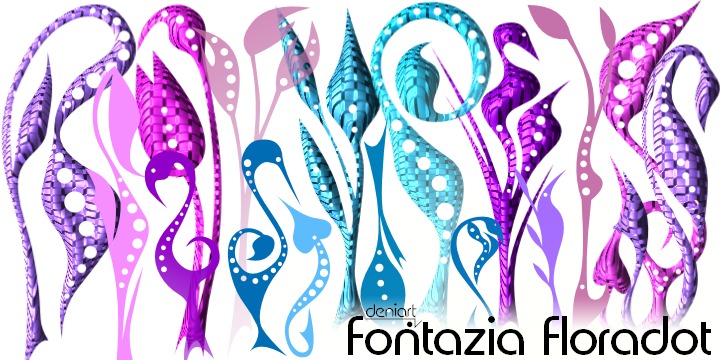
• Fontazia Floradot™
Fontazia FloraDot features 62 unique dotted floral patterns. These simple swaying FloraDot blooms will add flair to any font library - they're great for backgrounds, greeting cards, posters, summer themes or any project where florals say just the right thing!